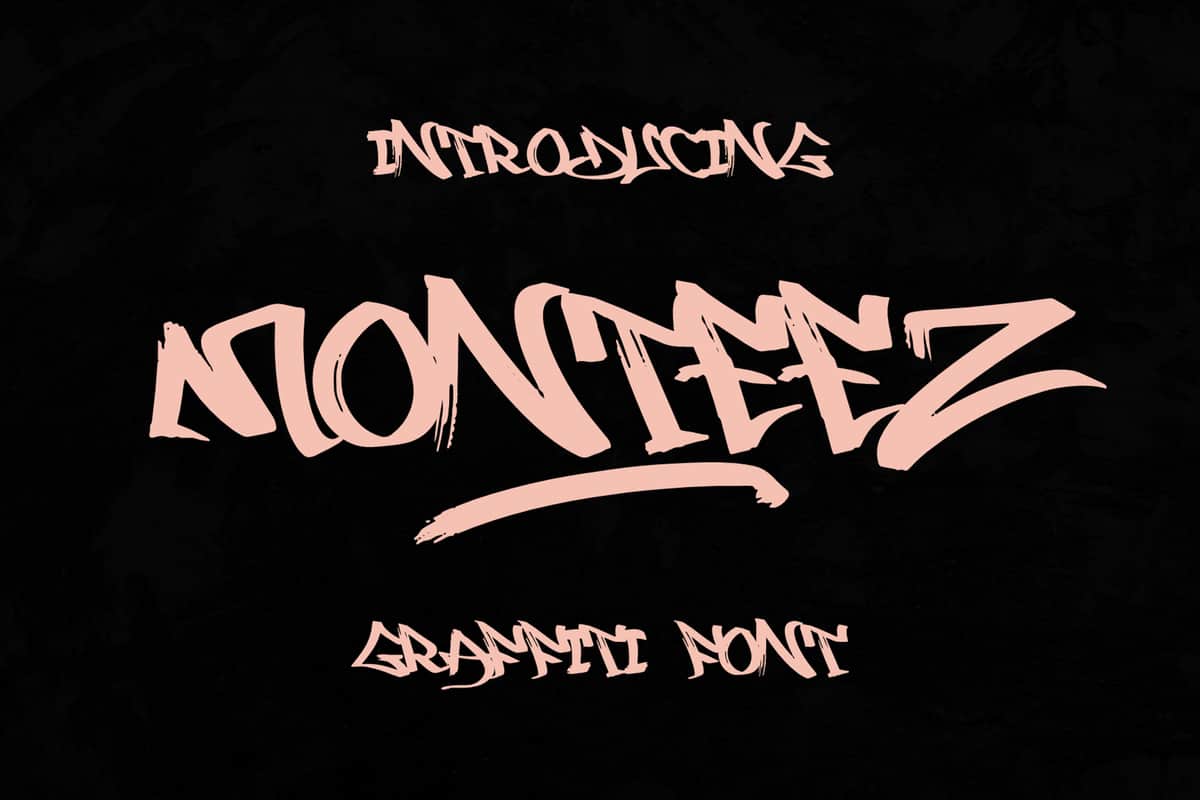
Monteez Graffiti
Step into the dynamic world of street art with Monteez – the urban graffiti font that exudes raw energy and urban flair. More than just a font, Monteez is a statement of rebellion and creativity, perfect for capturing the bold and vibrant spirit of the streets.